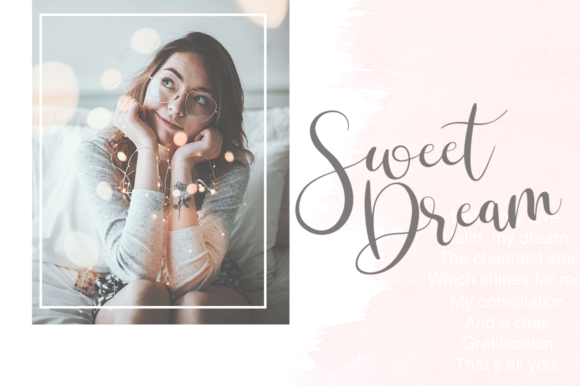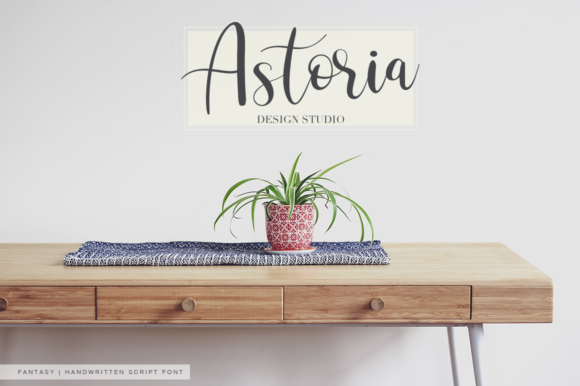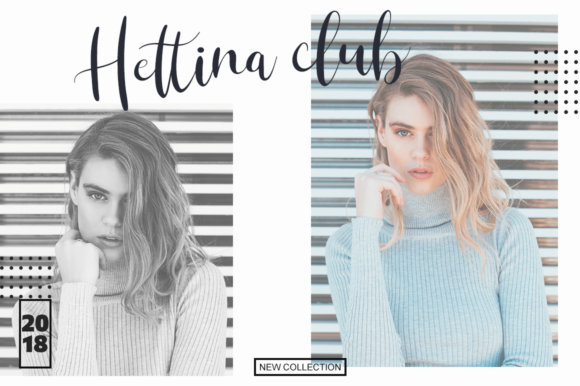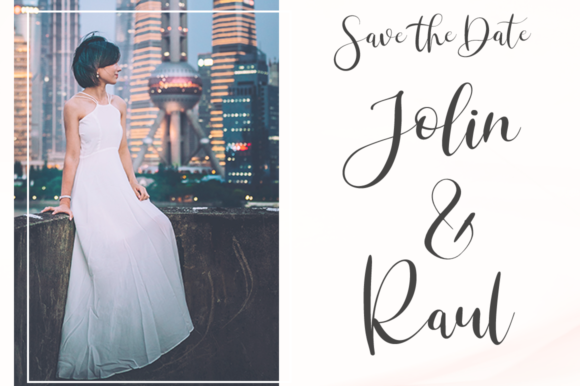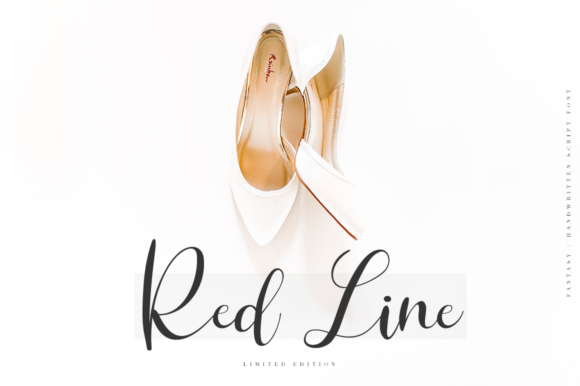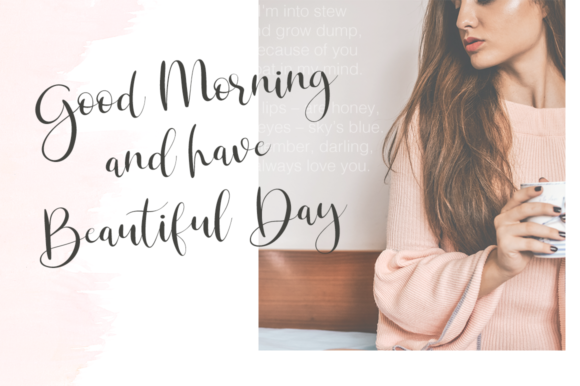
Fantasy Font: Elevate Your Designs with Elegance and Whimsy
Are you a designer or crafter looking for a font that can add a touch of femininity and elegance to your work? Look no further than Fantasy Font, a beautiful handwritten script font that is sure to captivate your audience. With its unique letters and flowing curves, Fantasy Font is the perfect choice for a wide range of design needs, from wedding invitations and branding materials to digital graphics and craft projects.
The Beauty of Handwritten Script Fonts
Handwritten script fonts have a way of adding a personal touch to any design. They evoke feelings of warmth, intimacy, and elegance, making them perfect for designs that require a more sophisticated and refined look. Fantasy Font is no exception, with its delicate strokes and whimsical flair. This font is carefully crafted to mimic the look of handwritten script, with each letter and swirl meticulously designed to create a sense of movement and fluidity.
What Makes Fantasy Font Special?
Fantasy Font stands out from other script fonts due to its unique characteristics. Here are just a few features that make it a standout choice for designers and crafters:
- Feminine and Elegant: Fantasy Font has a distinctly feminine feel, making it perfect for designs that require a touch of elegance and sophistication.
- Unique Letters: Each letter in Fantasy Font is carefully designed to be distinct and recognizable, making it easy to read and understand.
- Versatile: Fantasy Font works great for a wide range of design needs, from wedding invitations and branding materials to digital graphics and craft projects.
- Handwritten Look: Fantasy Font has a beautifully handwritten look that adds a personal touch to any design.
Uses for Fantasy Font
Fantasy Font is a versatile font that can be used for a wide range of design projects. Here are just a few ideas to get you started:
- Wedding Invitations: Add a touch of elegance and sophistication to your wedding invitations with Fantasy Font.
- Branding Materials: Use Fantasy Font to create beautiful branding materials, such as logos, business cards, and letterheads.
- Digital Graphics: Fantasy Font is perfect for digital graphics, such as social media graphics, blog headers, and email newsletters.
- Craft Projects: Add a personal touch to your craft projects, such as handmade cards, scrapbooking, and DIY gifts.
Tips for Using Fantasy Font
Here are a few tips for using Fantasy Font in your designs:
- Pair with Other Fonts: Fantasy Font pairs well with other fonts, such as sans-serif fonts and serif fonts. Experiment with different font combinations to find the perfect look for your design.
- Use for Headings: Fantasy Font is perfect for headings and titles, adding a touch of elegance and sophistication to your design.
- Experiment with Colors: Fantasy Font looks great in a variety of colors, from soft pastels to bold and bright hues. Experiment with different colors to find the perfect look for your design.
Fantasy Font is a beautiful handwritten script font that is sure to elevate your designs with elegance and whimsy. With its unique letters and flowing curves, Fantasy Font is the perfect choice for designers and crafters looking for a font that can add a touch of femininity and sophistication to their work. Whether you’re creating wedding invitations, branding materials, digital graphics, or craft projects, Fantasy Font is a versatile font that is sure to impress.